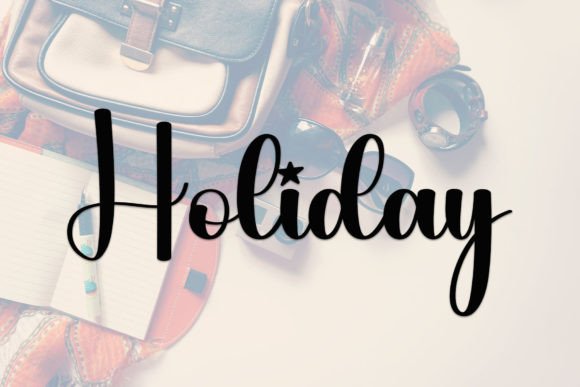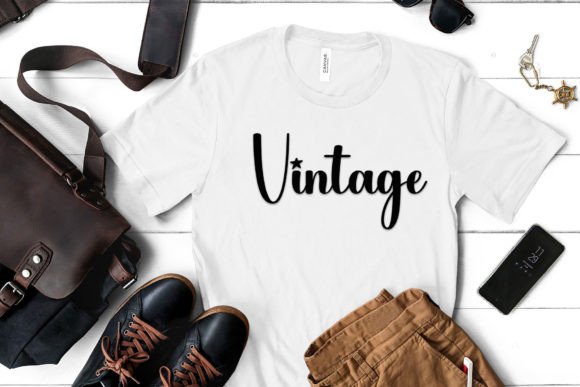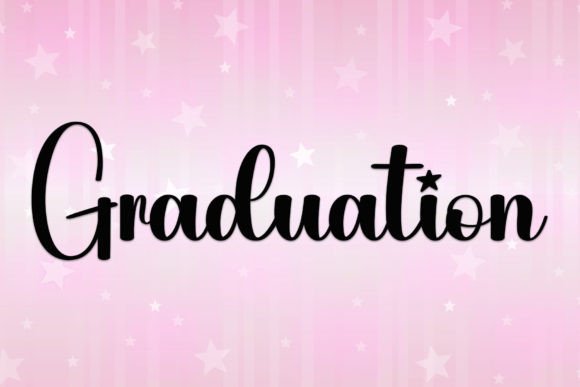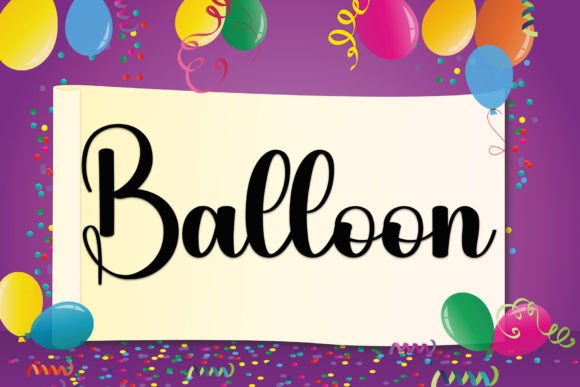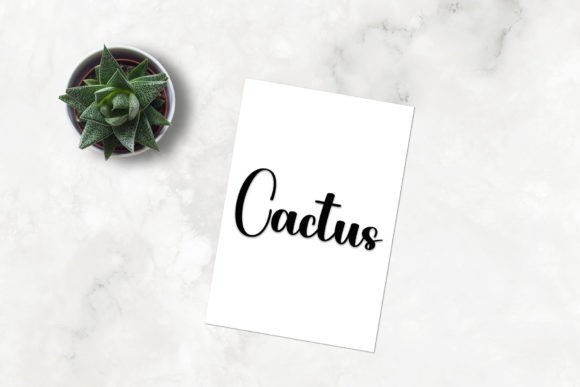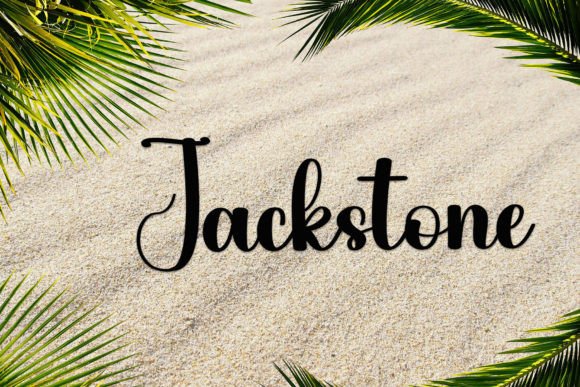
Biscuits Font: Elevate Your Designs with Elegance and Timeless Style
Are you on the hunt for a font that exudes elegance, sophistication, and a touch of whimsy? Look no further than Biscuits Font, a stunning handwritten typeface that is sure to capture your heart. With its unique blend of classic charm and modern flair, Biscuits is the perfect addition to any design project, from crafting and branding to digital art and beyond.
The Characteristics of Biscuits Font
Biscuits Font is described as a neat and beautiful handwritten font, characterized by an elegant touch that sets it apart from other typefaces. Its incredibly distinct and timeless style makes it an excellent choice for designers and crafters looking to add a personal touch to their work. The font’s flowing lines, subtle curves, and delicate strokes create a sense of movement and fluidity, making it perfect for a wide range of applications.
Why Choose Biscuits Font?
So, what makes Biscuits Font so special? Here are just a few reasons why designers and crafters are falling in love with this gorgeous typeface:
- Elegant and Sophisticated: Biscuits Font boasts an air of elegance and sophistication, making it perfect for high-end branding, luxury packaging, and refined digital art.
- Unique and Timeless: The font’s classic charm and modern flair combine to create a truly unique and timeless style that will set your designs apart from the crowd.
- Versatile: Biscuits Font is incredibly versatile, suitable for a wide range of applications, from headings and titles to body text and quotes.
- Easy to Read: Despite its elegant and cursive nature, Biscuits Font is surprisingly easy to read, making it perfect for both digital and print applications.
Using Biscuits Font in Your Designs
So, how can you incorporate Biscuits Font into your designs? Here are a few ideas to get you started:
- Branding and Logo Design: Use Biscuits Font to create stunning logos, business cards, and brand identities that exude elegance and sophistication.
- Digital Art and Illustration: Add a touch of whimsy and charm to your digital art and illustrations with Biscuits Font, perfect for titles, captions, and quotes.
- Crafting and Scrapbooking: Bring a personal touch to your crafting and scrapbooking projects with Biscuits Font, ideal for journaling, titles, and embellishments.
- Web Design: Elevate your website’s typography with Biscuits Font, perfect for headings, titles, and accents.
Tips and Tricks for Working with Biscuits Font
To get the most out of Biscuits Font, here are a few tips and tricks to keep in mind:
- Experiment with Font Sizes: Play around with different font sizes to create visual interest and hierarchy in your designs.
- Pair with Other Fonts: Combine Biscuits Font with other typefaces to create a unique and harmonious typography scheme.
- Adjust Letter Spacing: Fine-tune the letter spacing to create a more customized and polished look.
- Use it Sparingly: Don’t be afraid to use Biscuits Font sparingly to create emphasis and add a touch of elegance to your designs.
In conclusion, Biscuits Font is a truly special typeface that is sure to capture your heart. With its elegant touch, unique style, and versatility, it’s the perfect addition to any design project. Whether you’re a designer, crafter, or digital artist, Biscuits Font is sure to elevate your work and add a touch of timeless sophistication. So why wait? Fall in love with Biscuits Font today and start creating spectacular designs that will leave a lasting impression!